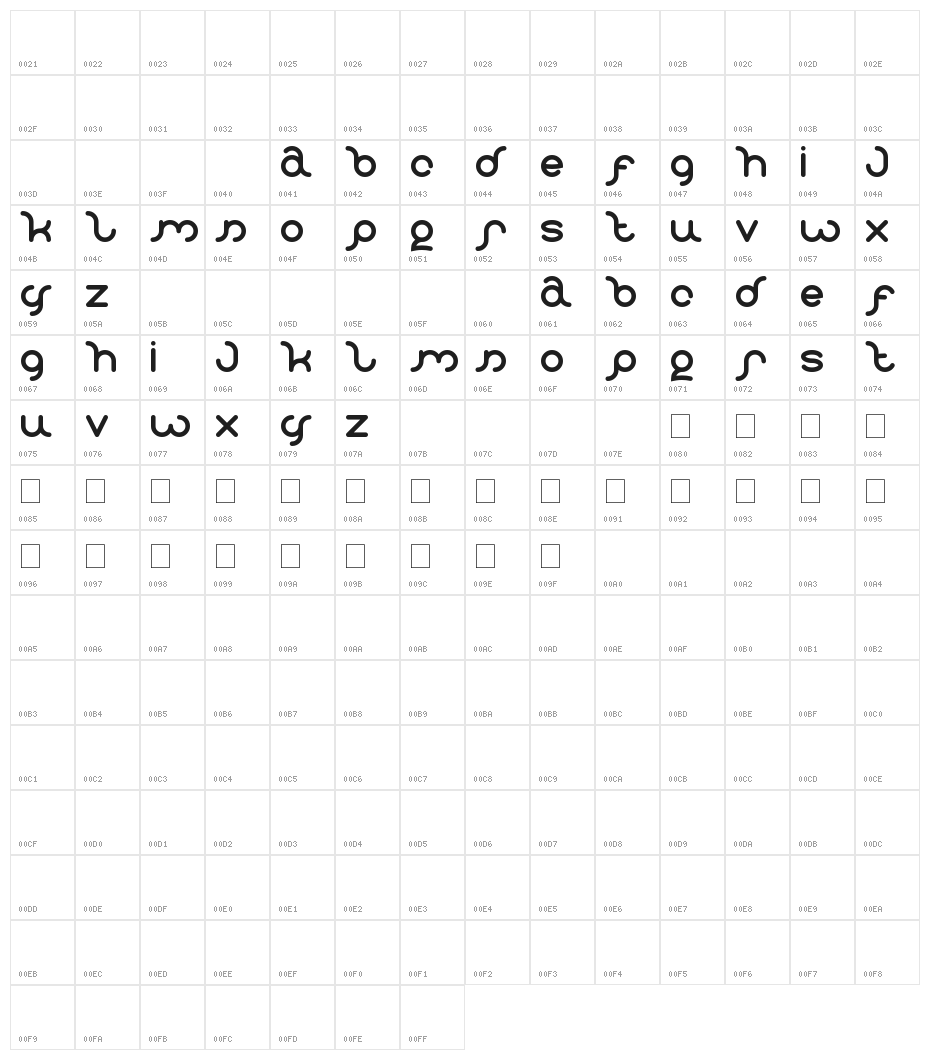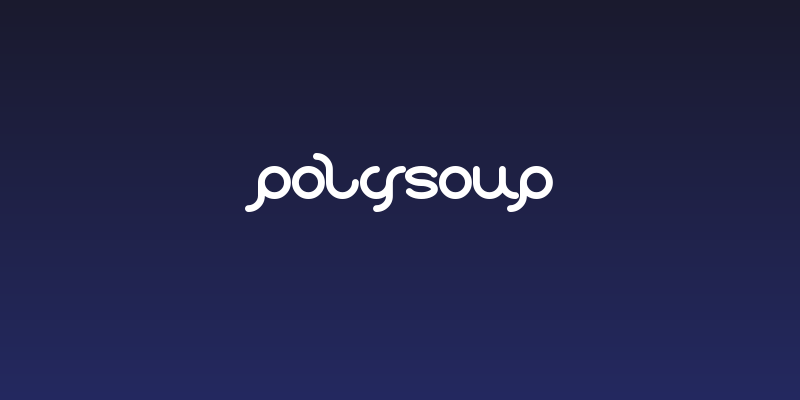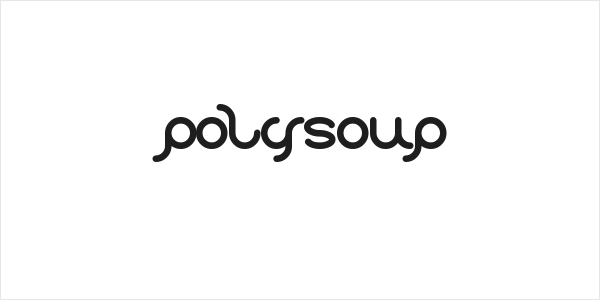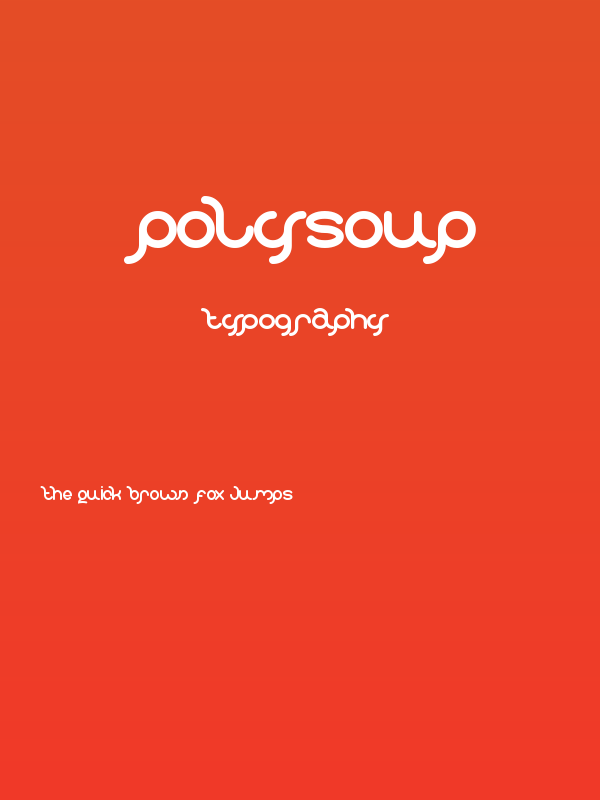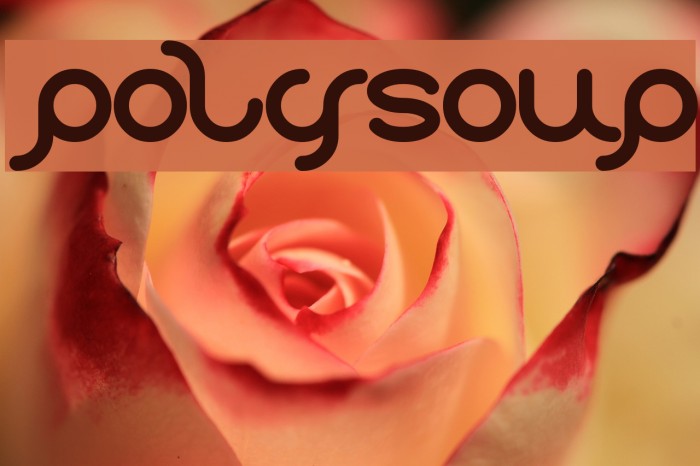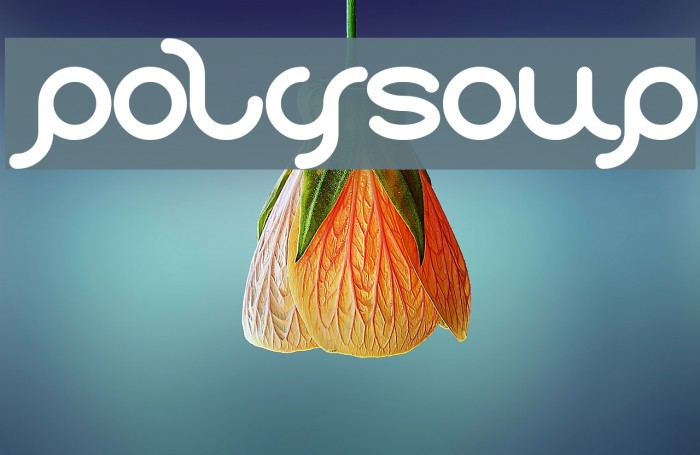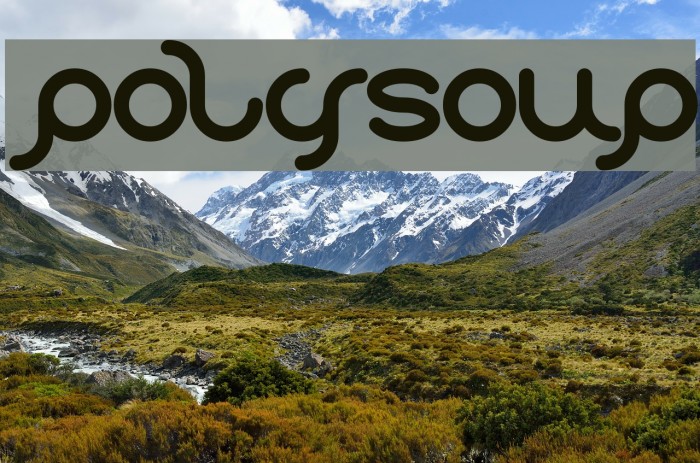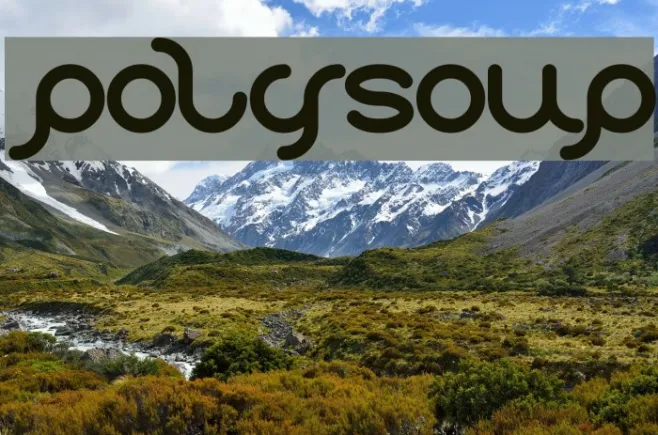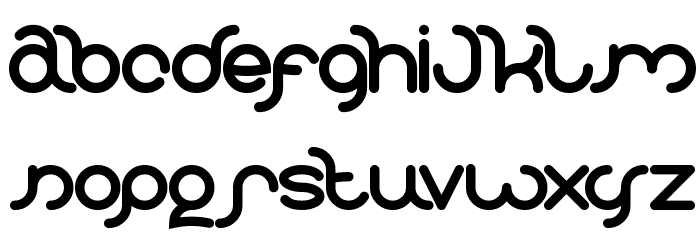
polysoup Font
polysoup Description
This font features a unique and playful design with rounded, interconnected strokes that create a continuous flow across each character. The letters exhibit a bold and modern aesthetic, with a consistent thickness throughout, giving it a cohesive and unified appearance. The curves are smooth and pronounced, adding a sense of movement and dynamism. Its distinctive style makes it stand out, while maintaining readability. The font's design is both artistic and functional, making it suitable for various creative applications.